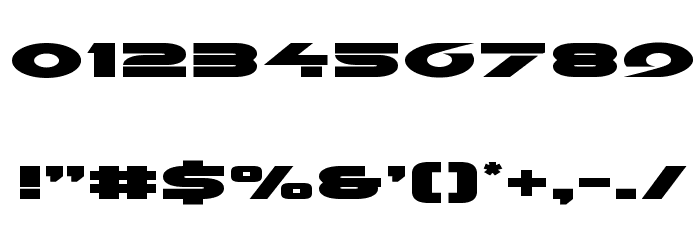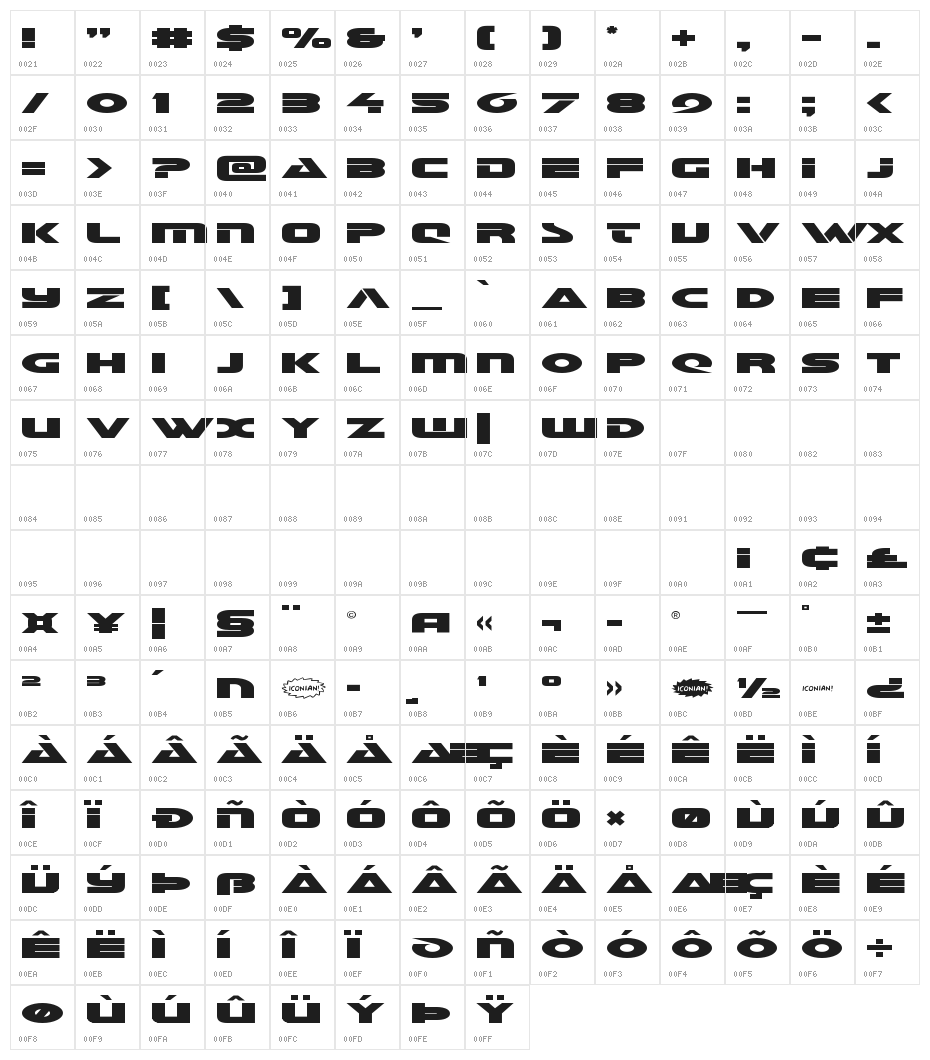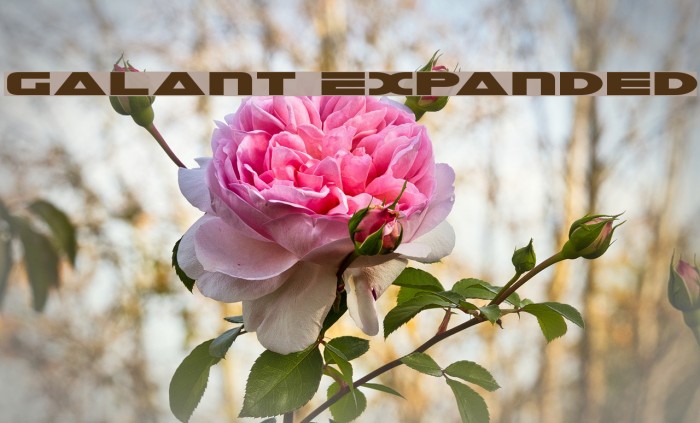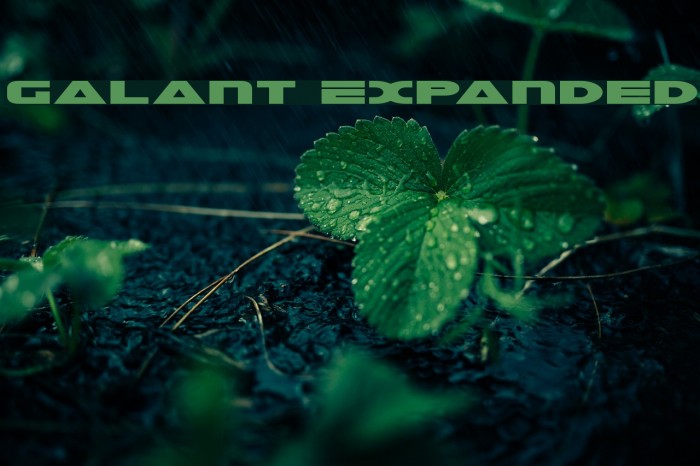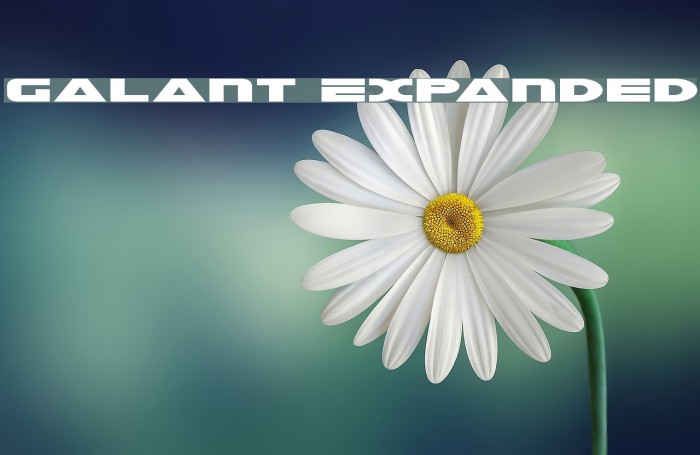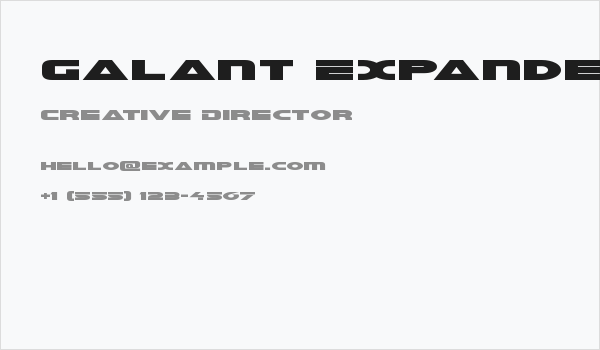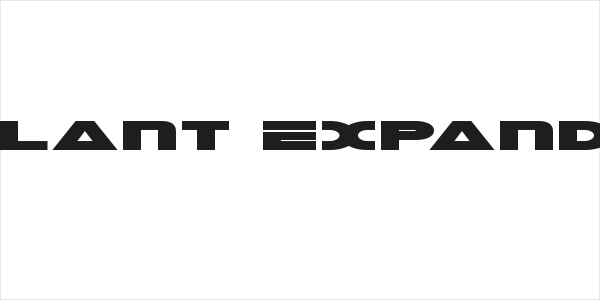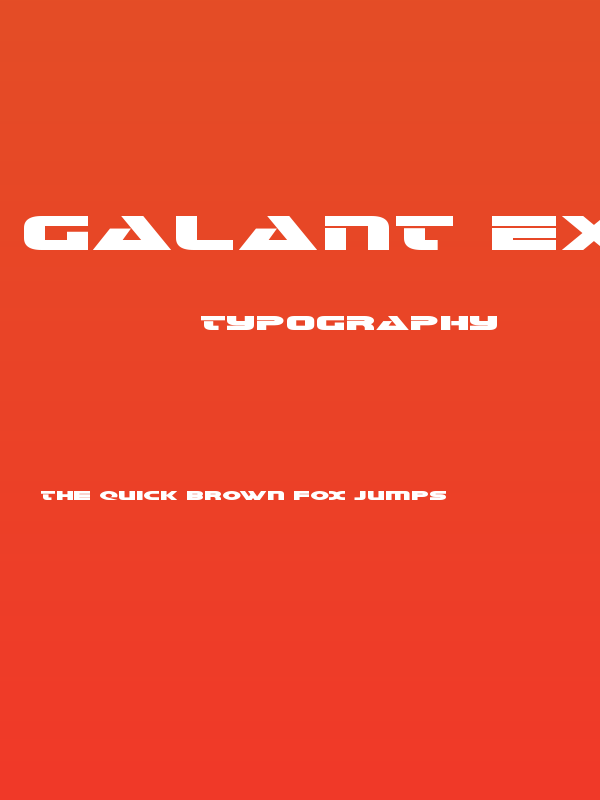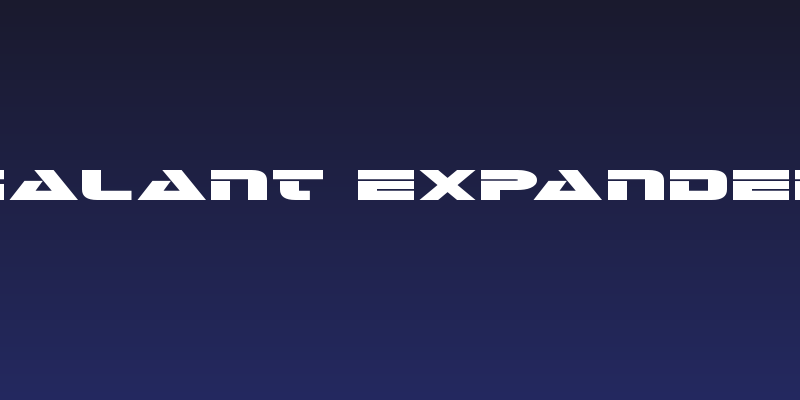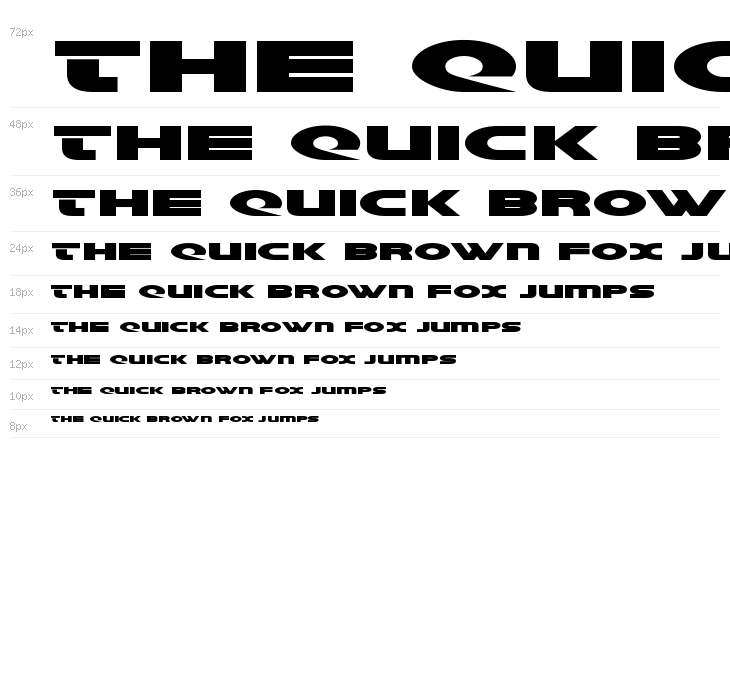
Galant Expanded Font
Galant Expanded Description
This font features a bold and futuristic design with a distinctly geometric style. The characters are wide and have a strong presence, making them ideal for attention-grabbing headlines. The angular cuts and sharp edges give it a modern and dynamic feel. The uppercase and lowercase letters maintain a consistent style, ensuring uniformity across different text sizes. The numerals and special characters are crafted with the same boldness and geometric precision, enhancing the overall cohesive look of the font.
| Proposed Projects | Ideal for sci-fi themed designs, technology branding, video game titles, and modern posters. |